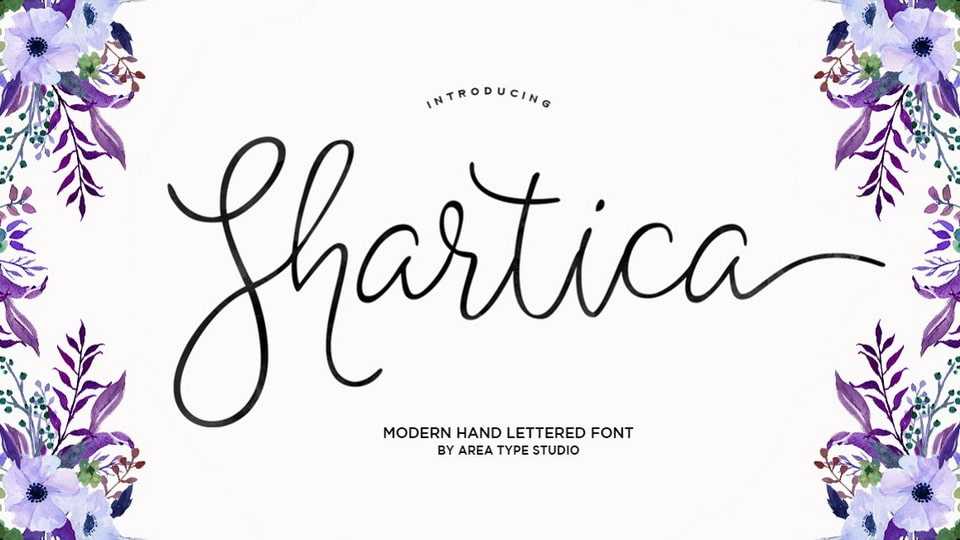
Download Shartica font, a lovely modern calligraphic script. It features dynamic and pretty swashes and can be used for many purposes such as titles, signatures, logos, wedding invitations.